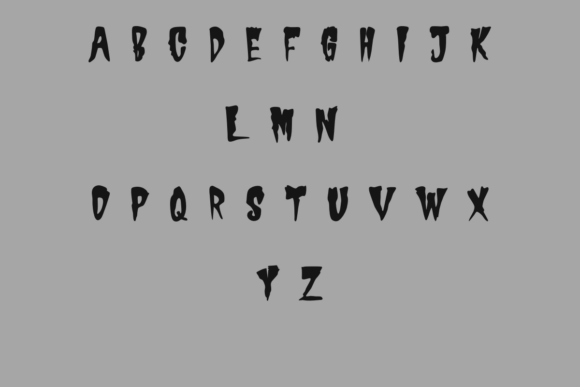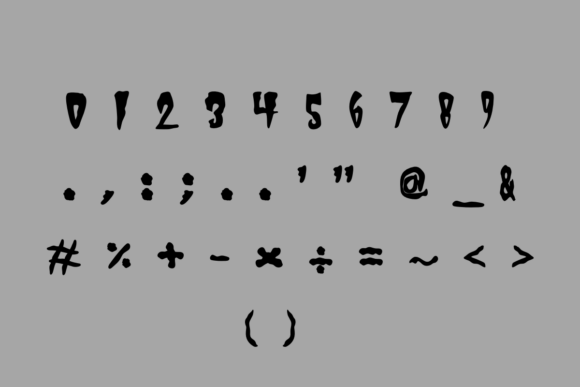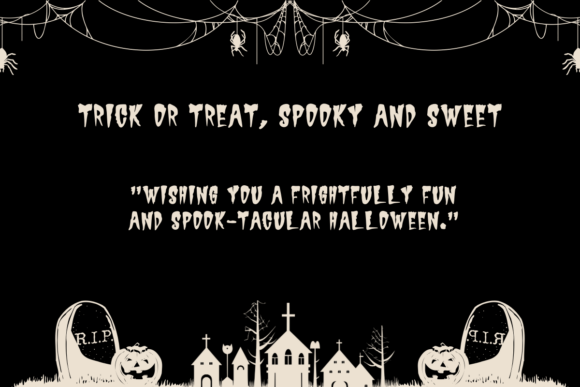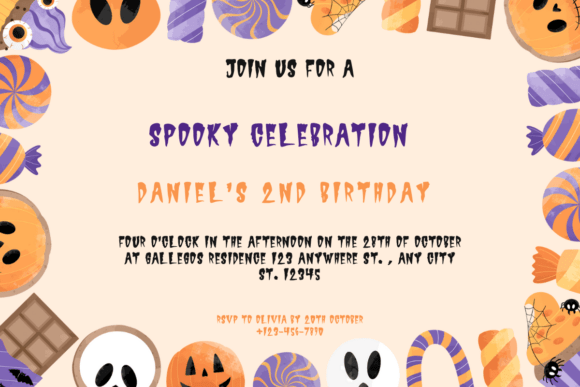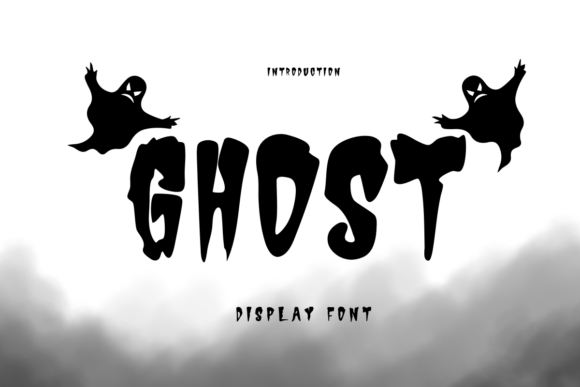
Unleash the Spooky Charm with Ghost Font: A Hauntingly Playful Display Font
As the spookiest time of the year approaches, designers and crafters are on the lookout for the perfect font to capture the essence of Halloween. Look no further than Ghost Font, a hauntingly playful display font that embodies the spirited essence of the season with bold, quirky charm. In this article, we’ll dive into the unique features of Ghost Font and explore how it can elevate your Halloween designs to new heights.
The Unique Character of Ghost Font
Ghost Font is a one-of-a-kind display font that boasts distorted, uneven letterforms that ripple with personality. Each glyph appears to twist, melt, or drip like a wisp of fog or a flickering candle flame, giving the font a delightfully eerie and whimsical feel. The high-contrast silhouette of Ghost Font adds to its dramatic effect, creating a sense of depth and dimensionality that’s sure to grab attention.
Perfect Balance of Spooky and Fun
What sets Ghost Font apart from other Halloween fonts is its perfect balance of spooky and fun. While it’s certainly eerie and haunting, it’s also playful and lighthearted, making it ideal for a wide range of design applications. Whether you’re creating Halloween party invites, haunted house posters, themed merchandise, or eerie social media graphics, Ghost Font brings a cinematic, supernatural flair that’s sure to delight.
Design Features and Characteristics
Ghost Font is designed to stand out and entertain, with a range of features and characteristics that make it perfect for Halloween designs. Some of its key features include:
• Distorted letterforms: Each glyph has a unique, hand-crafted feel that’s perfect for adding a touch of whimsy to your designs.
• High-contrast silhouette: The font’s dramatic contrast creates a sense of depth and dimensionality that’s sure to grab attention.
• Eerie whimsy: Ghost Font has just the right touch of spooky charm to make it perfect for Halloween designs.
Use Cases for Ghost Font
Ghost Font is incredibly versatile, and can be used for a wide range of design applications. Here are just a few ideas to get you started:
• Halloween party invites: Create spooky and fun invitations that set the tone for a howling good time.
• Haunted house posters: Draw in thrill-seekers with bold, eye-catching posters that showcase the eerie charm of Ghost Font.
• Themed merchandise: Add a touch of spooky whimsy to your Halloween-themed merchandise, from t-shirts to trick-or-treat bags.
• Eerie social media graphics: Create hauntingly beautiful social media graphics that are sure to grab attention and drive engagement.
Why Choose Ghost Font?
With so many fonts to choose from, why choose Ghost Font for your Halloween designs? Here are just a few reasons:
• Unique and eye-catching: Ghost Font is a one-of-a-kind font that’s sure to grab attention and stand out from the crowd.
• Perfect for Halloween: The font’s spooky and playful charm makes it perfect for a wide range of Halloween designs.
• Cinematic and supernatural: Ghost Font brings a cinematic, supernatural flair to your designs, making them feel both nostalgic and fresh.
If you’re looking for a font that captures the essence of Halloween with bold, quirky charm, look no further than Ghost Font. With its distorted, uneven letterforms, high-contrast silhouette, and eerie whimsy, this hauntingly playful display font is perfect for a wide range of design applications. Whether you’re a designer, crafter, or simply a Halloween enthusiast, Ghost Font is sure to bring a spine-tingling visual delight to your designs.